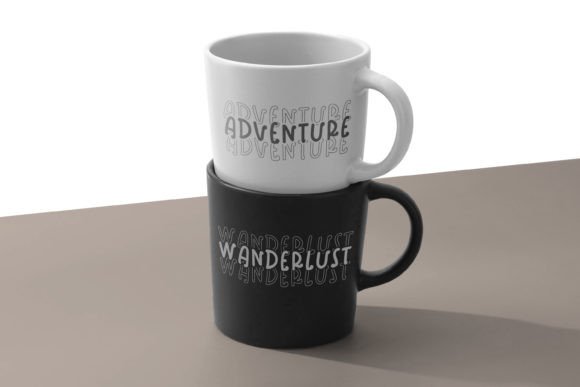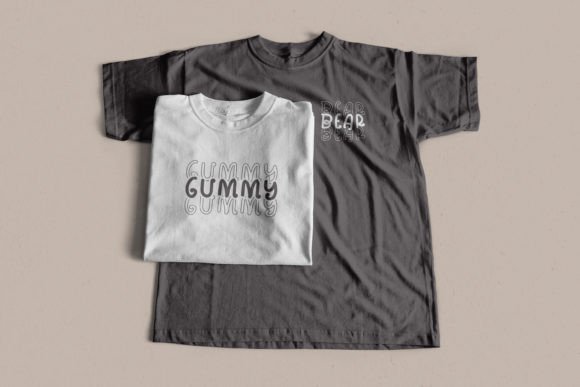
Introduction to Mirrorverse Font
Have you ever been working on a creative project, pouring your heart and soul into it, only to realize that it’s missing that one special element that brings it all together? For many designers, this moment is a familiar one, and it’s where the Mirrorverse Font comes in – a game-changing design resource that can elevate any project to the next level.
Whether you’re a seasoned pro or a DIY enthusiast, the Mirrorverse Font is an incredibly cool addition to your design arsenal. Its unique style and high-quality design make it perfect for custom designs, DIY crafts, and any other creation that requires a lovely touch. And the best part? It’s available for a free download, making it a valuable resource for designers of all levels.
With its transparent background and versatility, the Mirrorverse Font is a must-have for any creative project. So why settle for an ordinary design when you can make it extraordinary with the Mirrorverse Font?
Key Features of Mirrorverse Font
- High-quality font with a unique, futuristic design, perfect for creative projects that require a touch of sci-fi.
- Designed to be highly legible, even at small font sizes, making it ideal for use in digital products, such as apps, websites, and video games.
- Includes a range of glyphs and characters, making it suitable for use in multiple languages.
- Features a high-resolution design, suitable for use at resolutions up to 300 DPI, ensuring crisp and clear text rendering.
Honest Review: Mirrorverse Font
I recently stumbled upon the Mirrorverse Font and I’m excited to share my thoughts on this design resource. The Mirrorverse Font is a high-quality font that can add a touch of uniqueness to any creative project.
One of the standout features of the Mirrorverse Font is its transparent background, making it perfect for projects where you want to achieve a seamless look.
- High-quality font with crisp and clear typography
- Transparent background for a seamless look
- Perfect for creative projects, such as logos, branding, and graphics
- Limited character set, which may not be ideal for projects that require a wide range of characters
- May not be suitable for large-scale projects, such as books or newspapers
Overall, I’m impressed with the Mirrorverse Font and its potential to elevate creative projects. While it may have some limitations, it’s a great resource for designers who are looking for a high-quality, unique font.
The Mirrorverse Font is a high-quality design resource that offers a unique and creative way to add visual interest to your projects. This font features a transparent background, making it perfect for overlaying on images or using as a standalone element.
The Mirrorverse Font is perfect for a range of creative projects, including:
- Social media graphics and posts.
- Presentation slides and documents.
- Website headers and footers.
- Print materials, such as business cards and brochures.